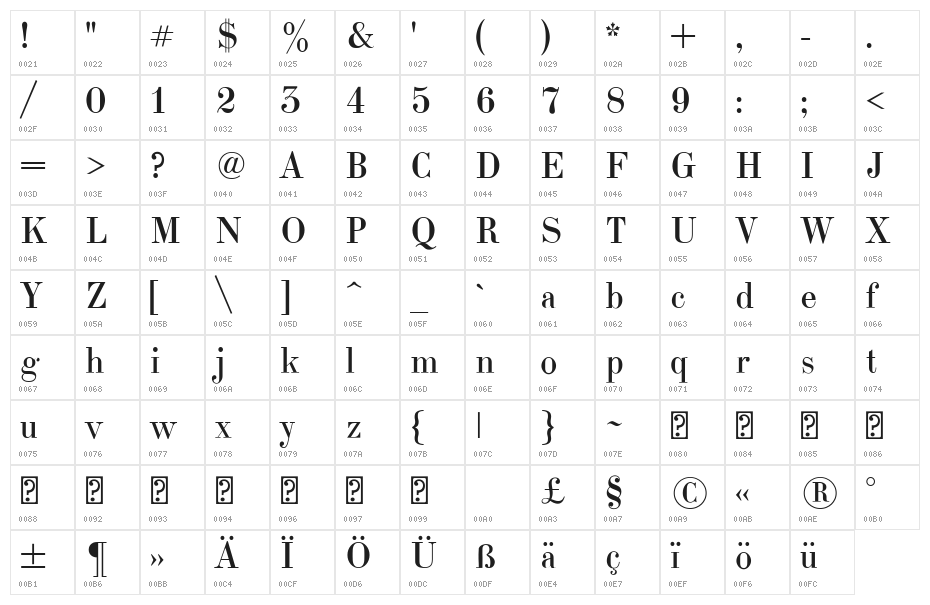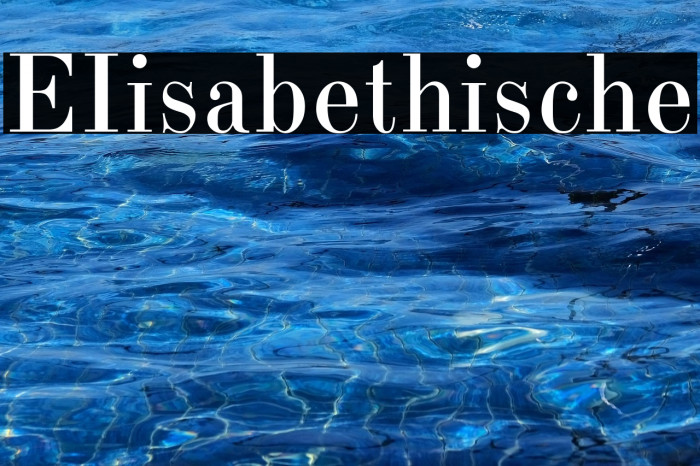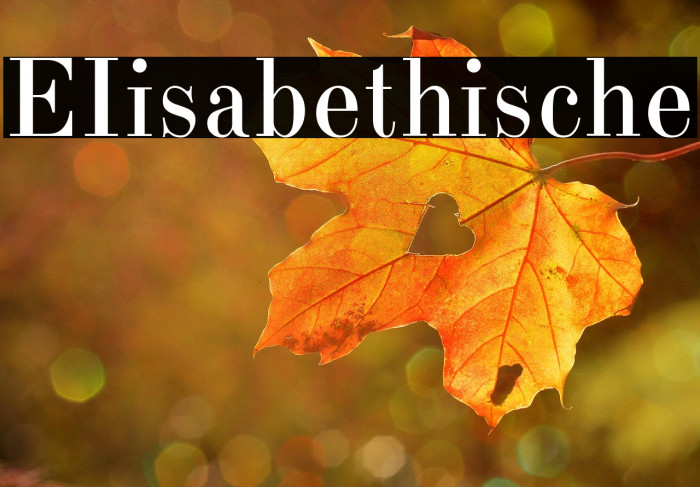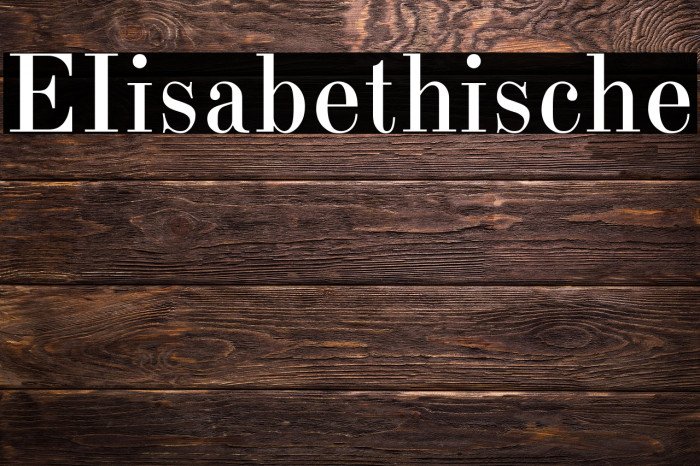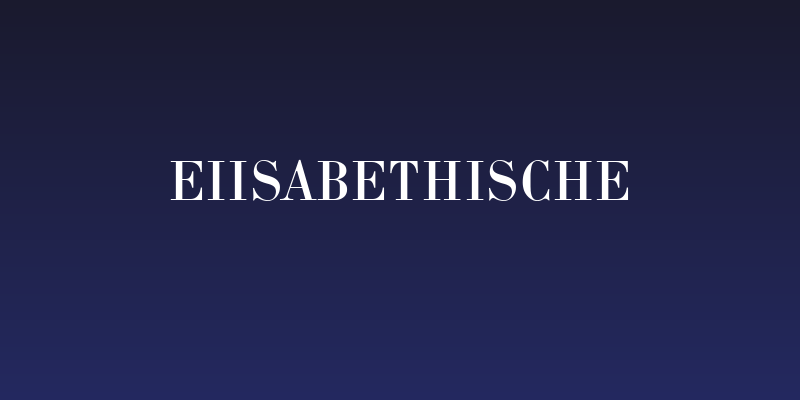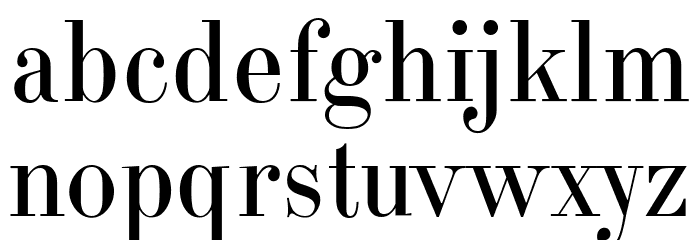
EIisabethische Font
EIisabethische Description
This font exudes a classic elegance reminiscent of traditional serif typefaces. It features high contrast between thick and thin strokes, giving it a refined and sophisticated appearance. The serifs are pronounced and slightly bracketed, adding to its timeless charm. The uppercase letters are stately and commanding, while the lowercase letters maintain a graceful flow. The numerals are well-proportioned, and the special characters are designed with a consistent style that complements the overall aesthetic. This font is ideal for projects that require a touch of formality and tradition.